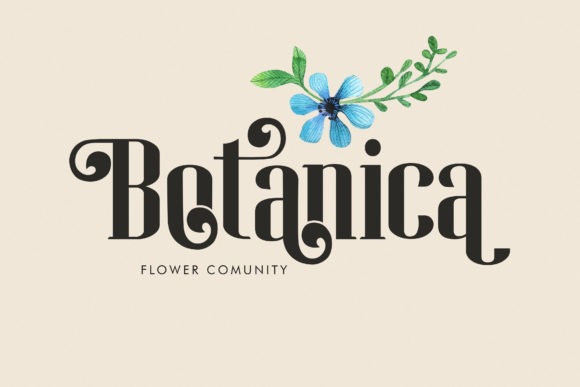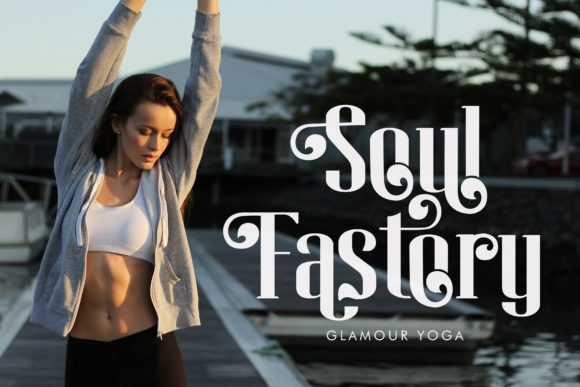
Difano Font
Difano is a unique and stylish serif font. It maintains its classy calligraphic influences while feeling contemporary and fresh. Fall in love with it and bring your projects to the highest levels!